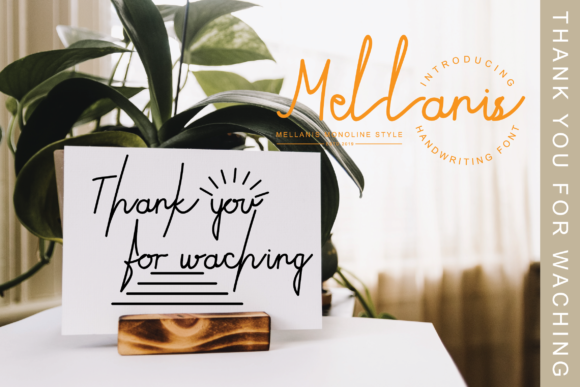
Introduction to Mellanis Font
Have you ever been working on a creative project, and the perfect font is the missing piece that brings it all together? For designers, finding that elusive font can be the difference between a good design and a great one. For those seeking a high-quality, hand-drawn look, the Mellanis Font is an excellent choice.
With its natural, transparent background, the Mellanis Font is perfect for a variety of creative projects, from logos and branding to social media posts and product packaging. Its versatility and unique style make it an invaluable design resource for any project.
Key Features of Mellanis Font
- High-quality design for creative projects, ideal for graphic designers and artists.
- Unique characteristics include elegant script and modern calligraphy styles, making it perfect for invitations, posters, and other creative projects.
Honest Review: Mellanis Font
Mellanis Font is a high-quality, elegant script font that can elevate any creative project. I recently had the opportunity to work with this font and I must say, I’m impressed.
- ✨ Unique character set: Mellanis Font comes with a wide range of characters, including ligatures and ornaments, which make it perfect for creative projects that require a personal touch.
- ⚠️ Not suitable for small font sizes: Due to its elegant script design, Mellanis Font may not be the best choice for projects that require small font sizes.
Overall, I’m impressed with Mellanis Font and would recommend it to designers looking for a high-quality, elegant script font. With its unique character set and transparent background, it’s a great design resource for any creative project.
Tips for Getting the Most Out of Mellanis Font
To get the most out of Mellanis Font, experiment with different font sizes and styles to create a unique and eye-catching design. You can also use the font in combination with other design elements, such as graphics and images, to add depth and visual interest to your project.
Mellanis Font is perfect for a variety of creative projects, including logos, brochures, and social media graphics. Its high-quality design and transparent background make it an ideal choice for designers looking to create visually appealing and professional-looking designs.
What makes Mellanis Font unique?
Mellanis Font features a transparent background, making it easy to use on any background or design element. Its clean and modern design also makes it a great choice for creative projects that require a high level of visual sophistication.